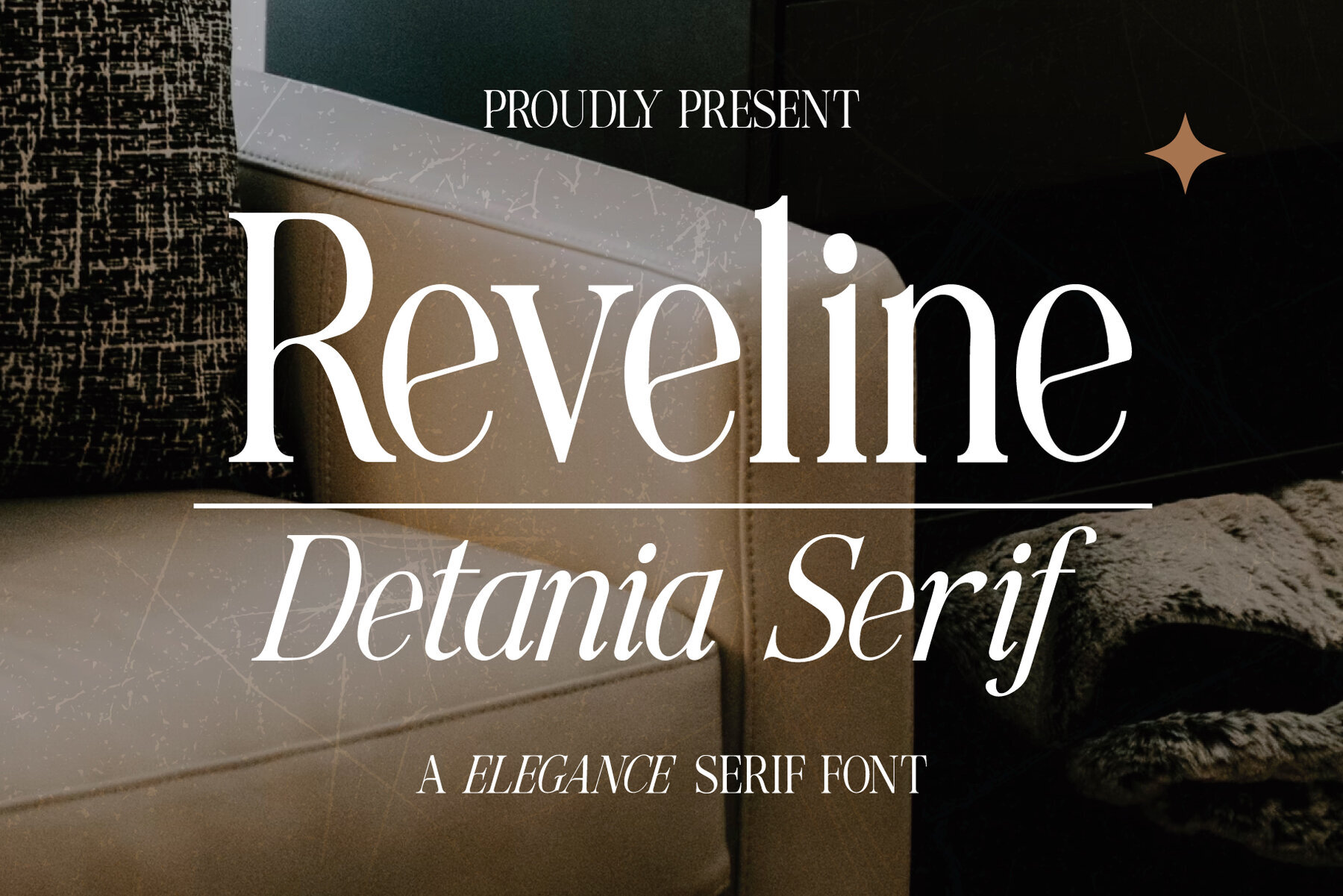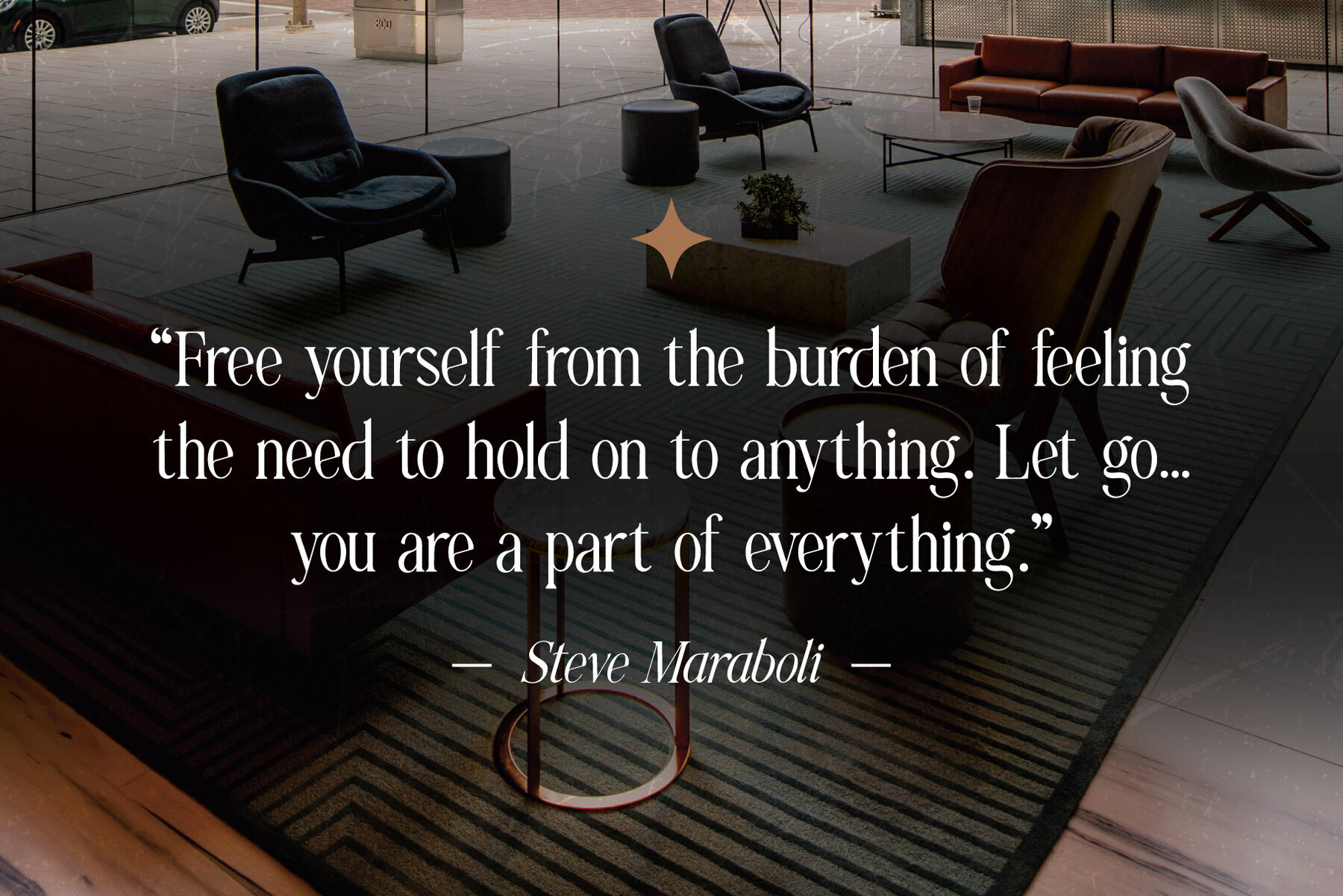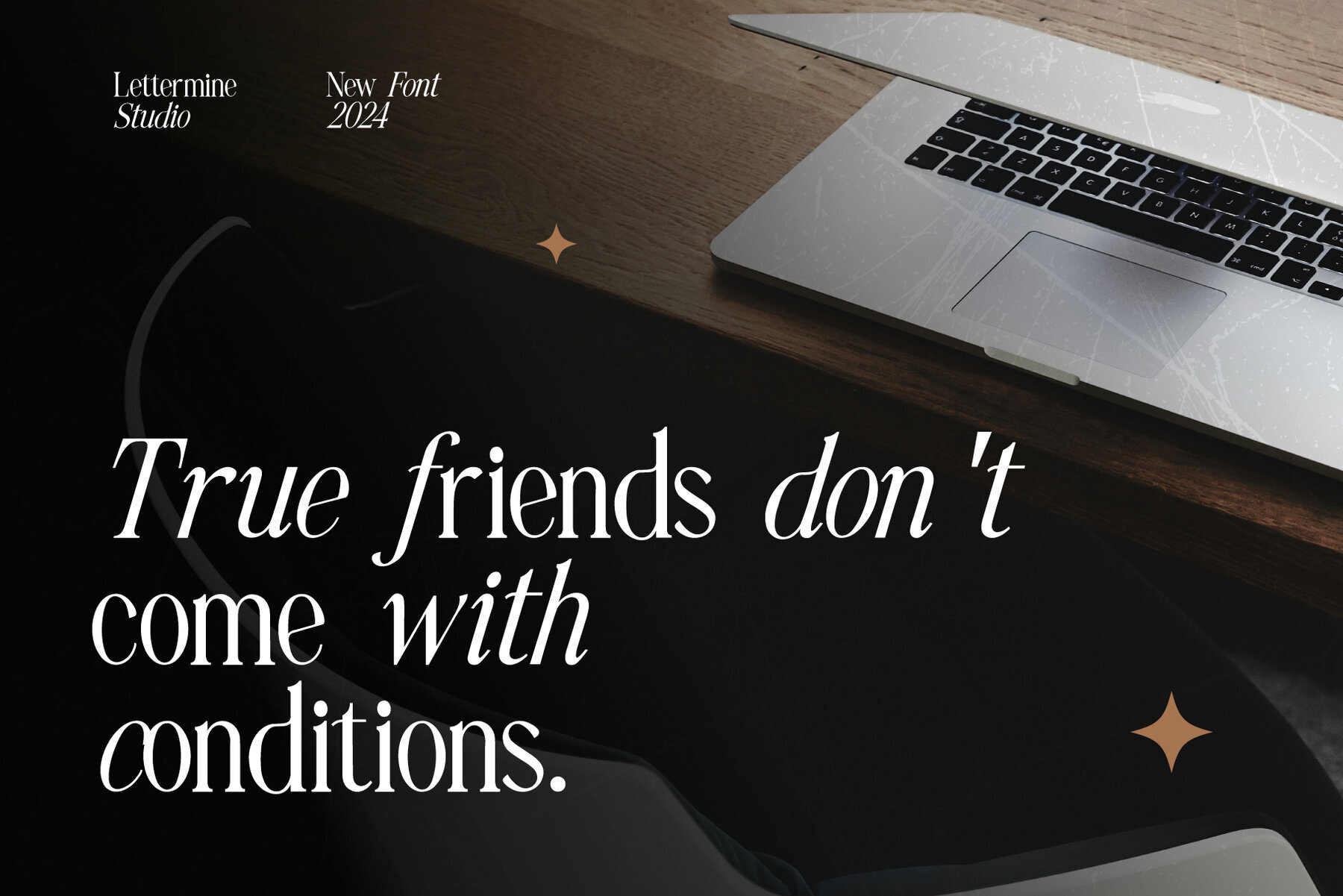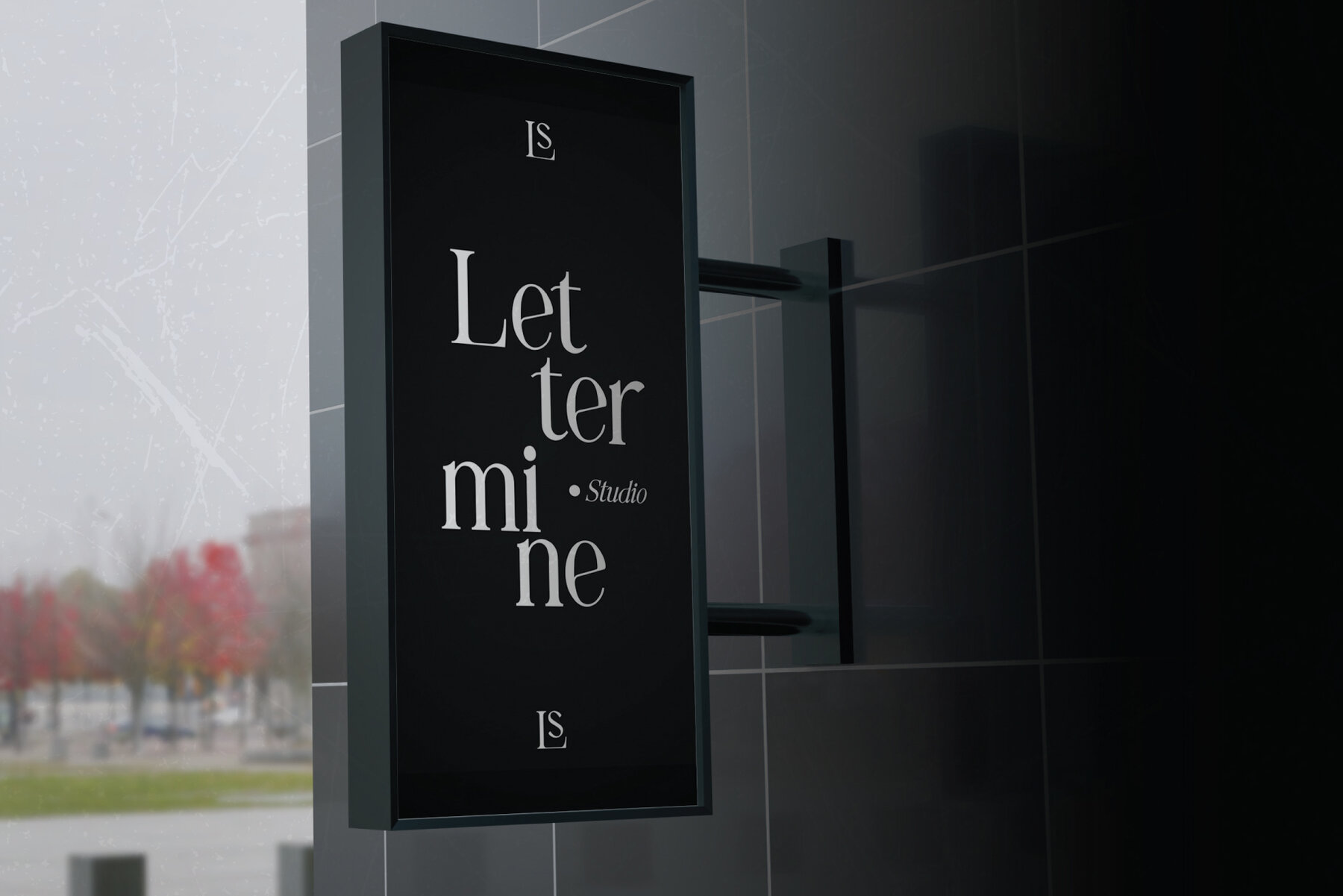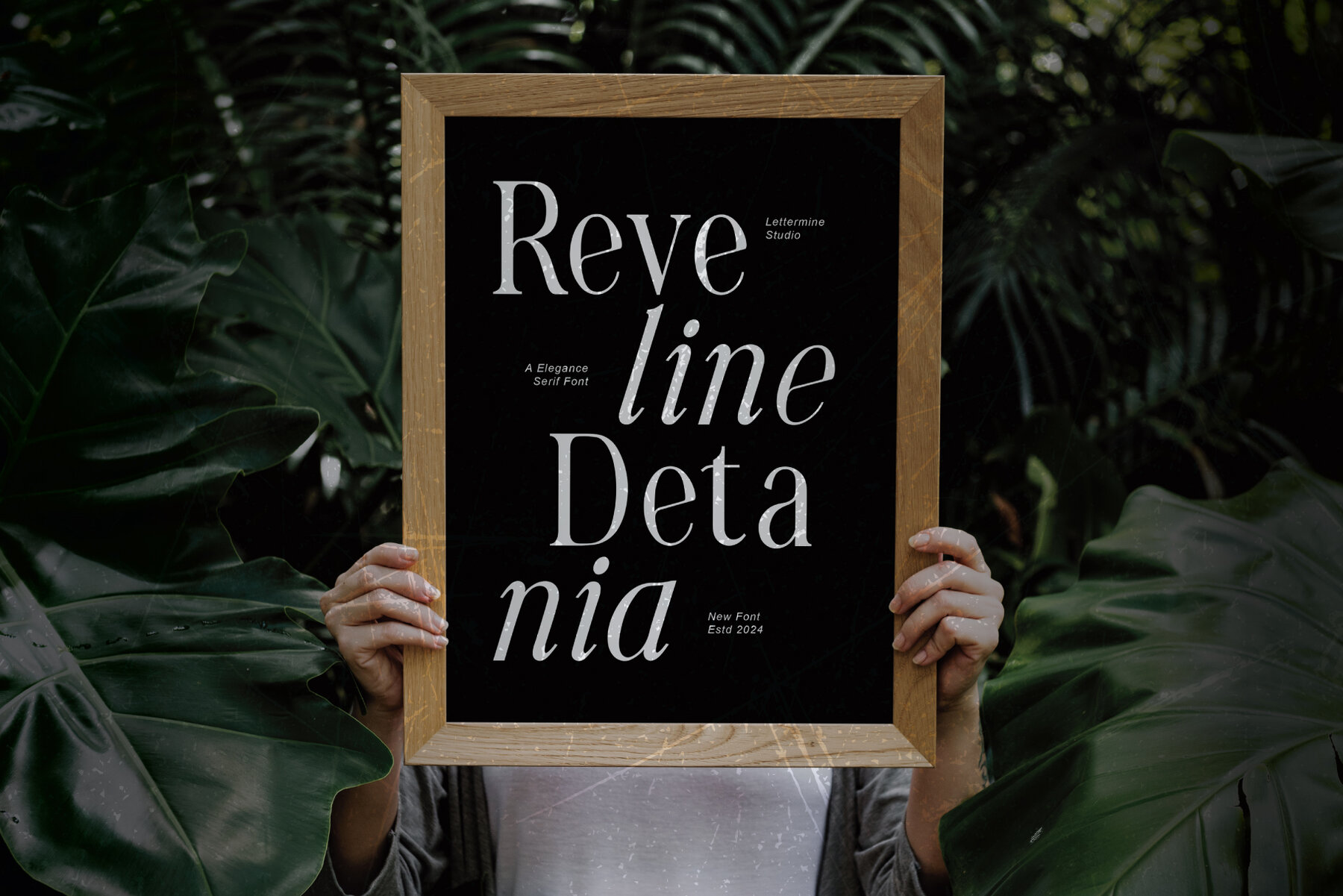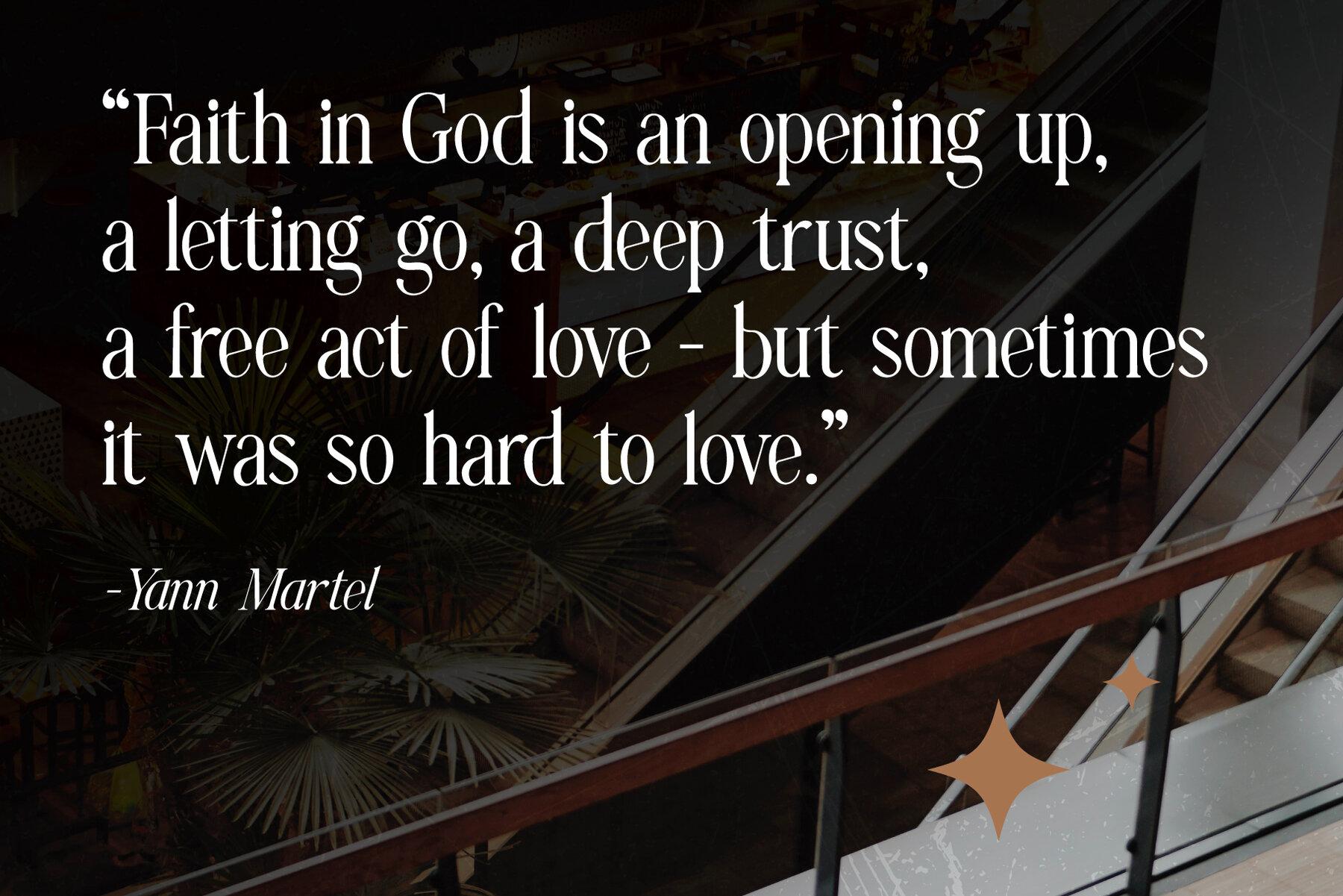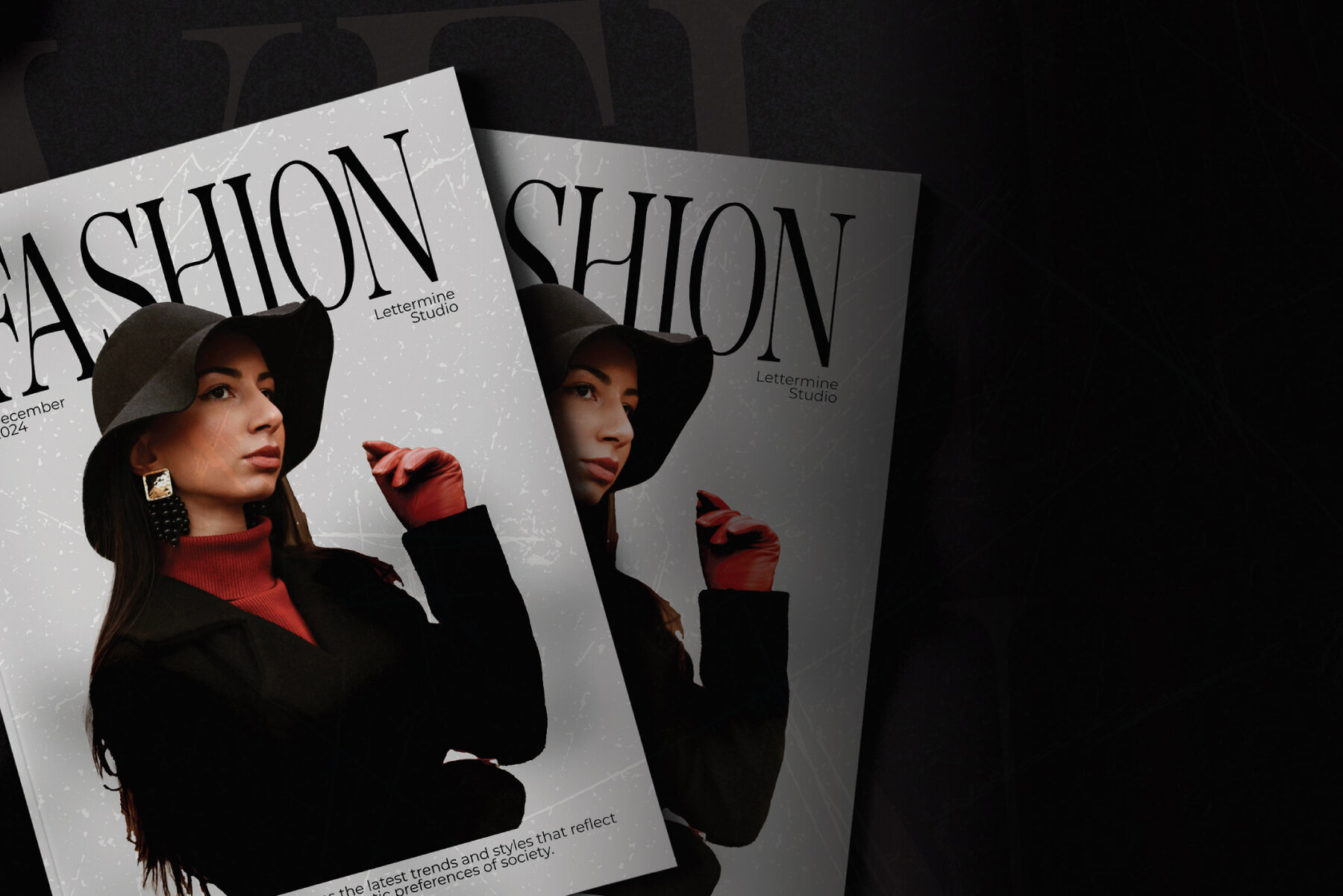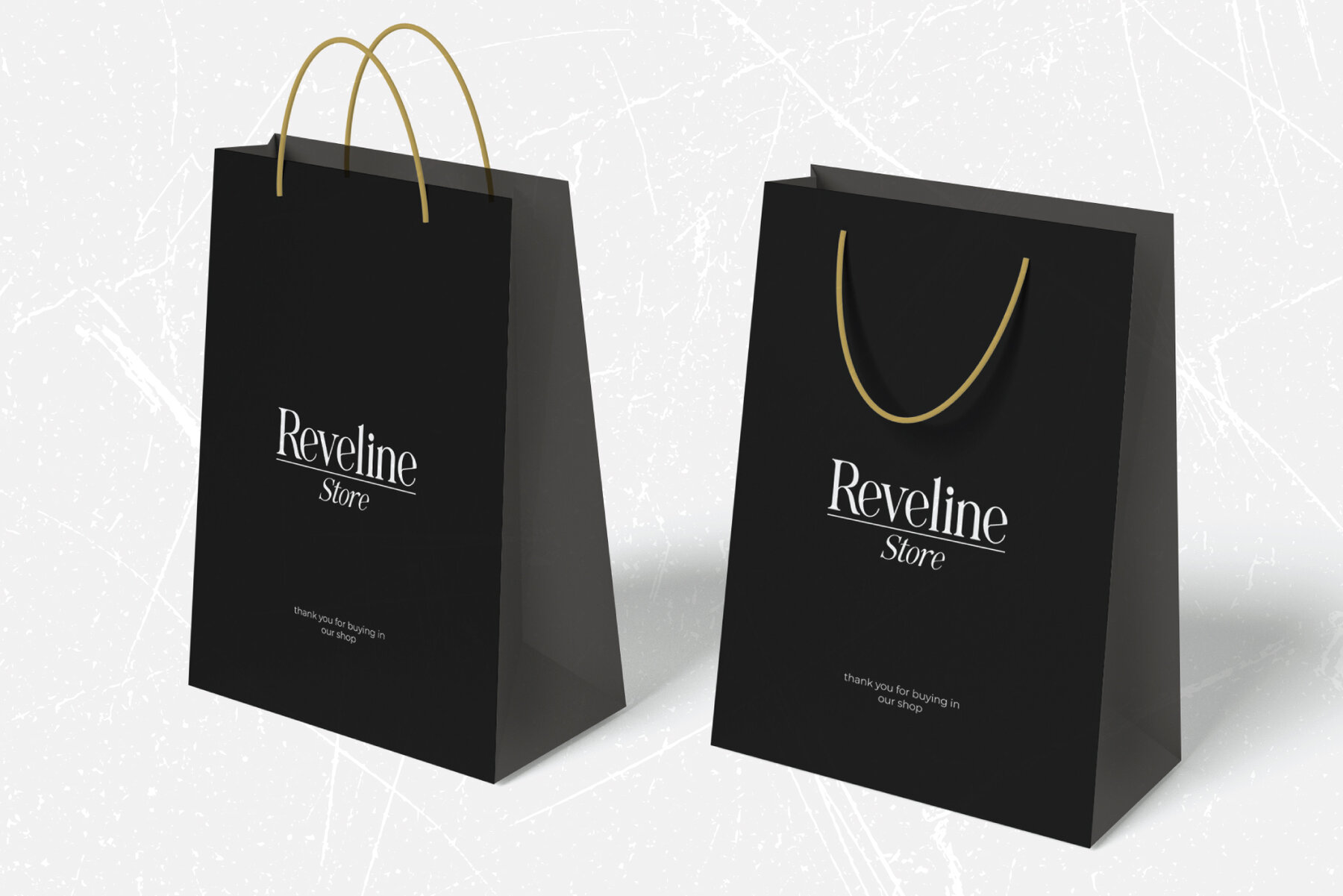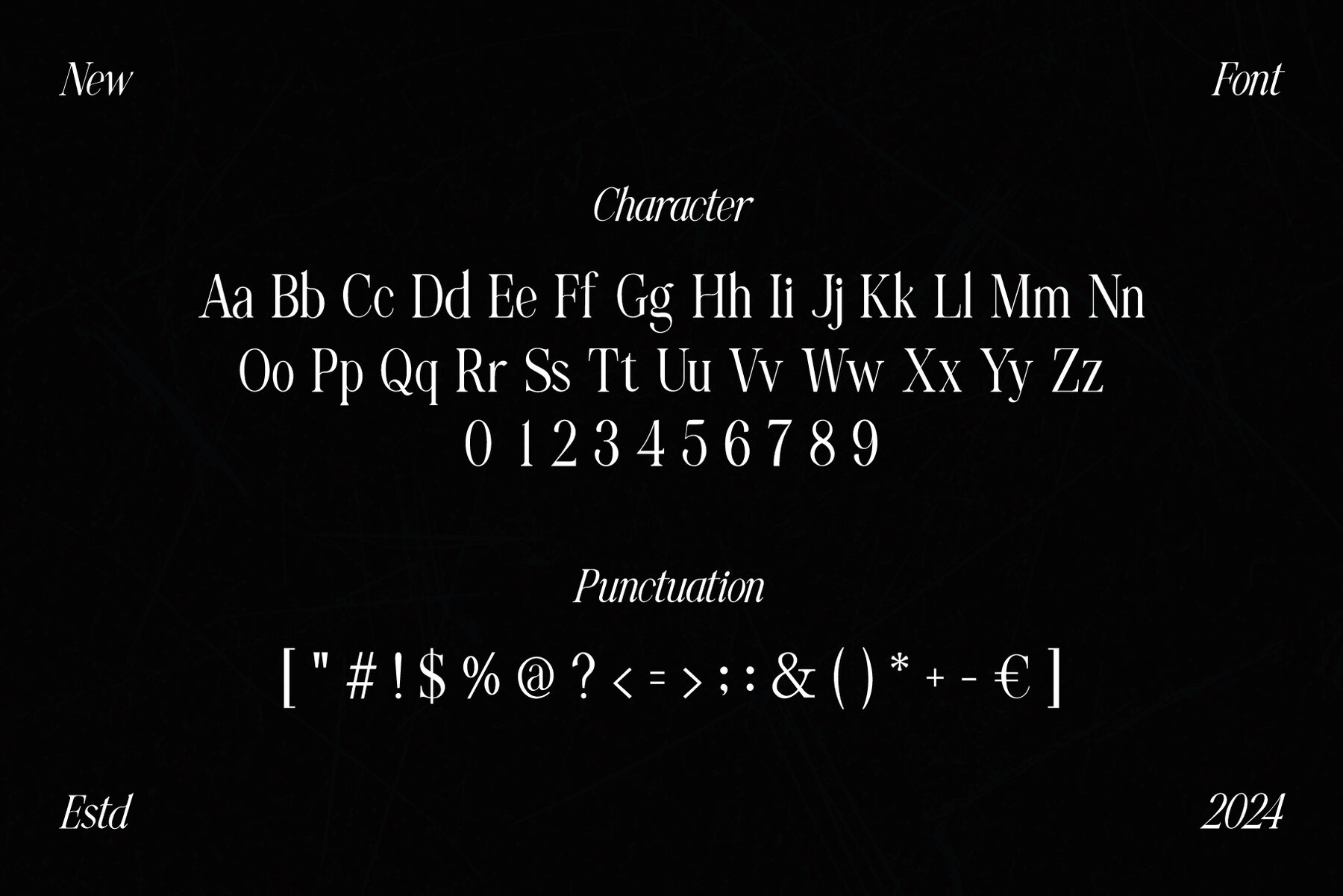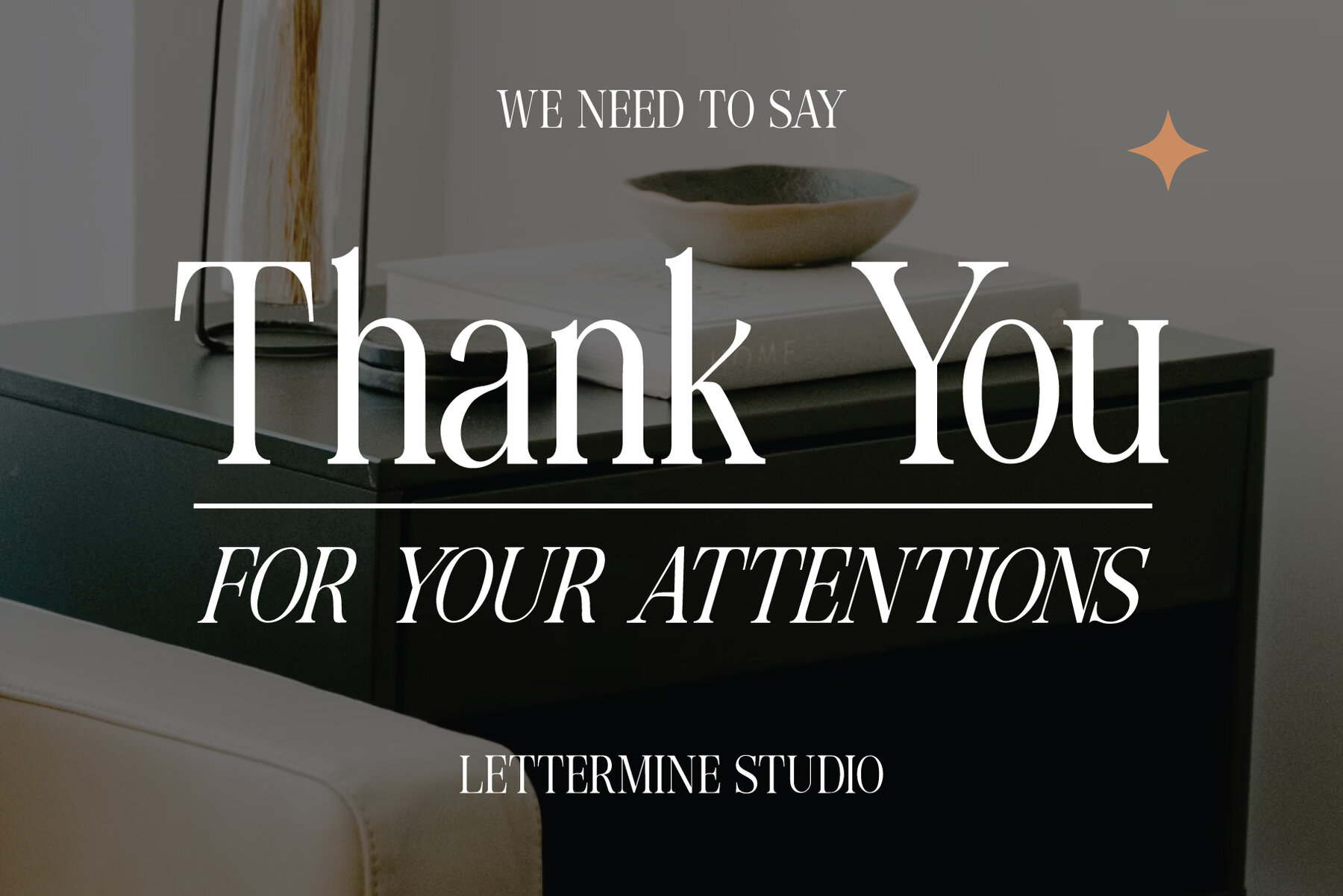
Reveline Detania Font
Reveline Detania is a meticulously crafted serif font that infuses your projects with timeless elegance and a modern twist, enhancing your designs with a refined and sophisticated look. Elevate your designs with Reveline Detania and let its graceful serifs breathe life into your creative vision, offering a harmonious blend of tradition and modernity.Reveline Detania: Elegant Serif with Modern Sophistication